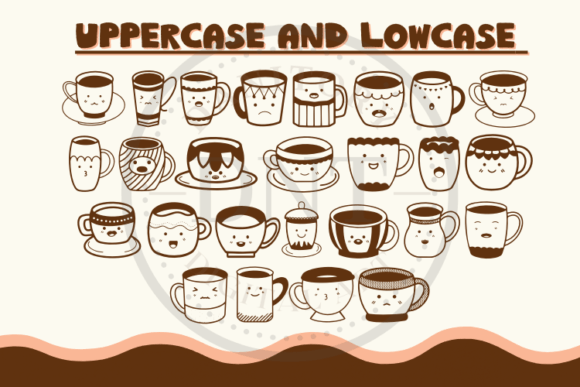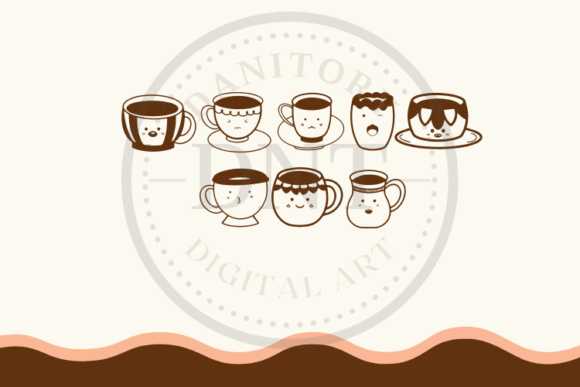
Introduction to Mug Coffee Font
As a designer, there’s nothing quite like the moment when inspiration strikes. You’re working on a creative project, and suddenly, the perfect font pops into your mind. It’s a feeling that’s hard to describe, but it’s like the stars aligning just right. For me, that moment came when I discovered the Mug Coffee Font. This delightful dingbats font features a variety of charming coffee mug designs that are sure to bring a smile to your face.
Whether you’re working on a project for a coffee shop, cafe, or just need a fun design element, the Mug Coffee Font is a valuable resource. With its high-quality design and transparent background, it’s perfect for any creative project. And the best part? It’s available for free download, making it an accessible design resource for designers of all levels.
Mug Coffee Font
- Unique characteristics: The font’s bold, playful design makes it perfect for use in branding, advertising, and packaging projects.
Honest Review: Mug Coffee Font
I recently had the chance to try out the Mug Coffee Font, and I’m excited to share my thoughts on this design resource. Overall, I was impressed with the quality and versatility of this font.
- ✨ High-quality design: The font is well-crafted and professional-looking, making it perfect for a variety of creative projects.
- ✨ Transparent background: The transparent background option makes it easy to use the font with any background image or design.
- ⚠️ Limited font weights: The font only comes in a few weights, which may limit its versatility in certain design applications.
- ⚠️ Not suitable for small text: The font may not be the best choice for small text, as it can be difficult to read.
Overall, I think the Mug Coffee Font is a great addition to any designer’s toolkit. While it may have some limitations, its high quality and free download make it a valuable resource for any creative project.
Tips for Getting the Most Out of the Mug Coffee Font
To get the most out of the Mug Coffee Font, use it in conjunction with a transparent background to create a high-quality design. Experiment with different font sizes and styles to add visual interest to your project.
The Mug Coffee Font is a versatile design resource that can be used in a variety of creative projects, including:
- Food and beverage branding
- Restaurant and cafe menus Mug Coffee Font Alternatives
Pacifico is a beautiful, high-quality script font perfect for creative projects that require a touch of elegance. It’s great for use in invitations, wedding designs, or any other project where a soft, handwritten feel is desired. Pacifico is a free download and comes with a transparent background, making it easy to layer with other design elements. Compared to Mug Coffee Font, Pacifico has a more refined, sophisticated look that’s ideal for more formal designs.
Great Vibes is a modern, cursive font that’s perfect for designs that need a fun, energetic vibe. It’s great for use in social media graphics, posters, or any other project where a playful, creative feel is desired. Great Vibes is a free download and comes with a transparent background, making it easy to customize and layer with other design elements. Compared to Mug Coffee Font, Great Vibes has a more playful, informal look that’s ideal for casual designs.